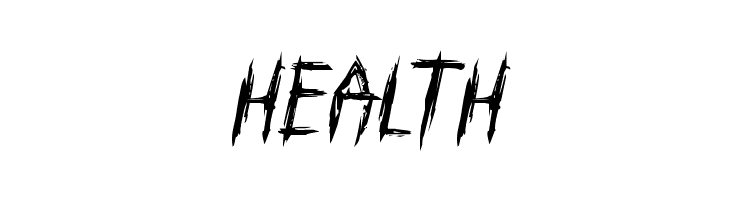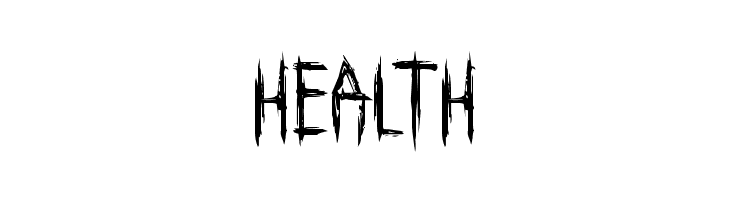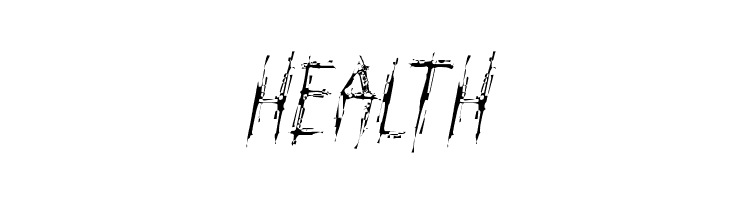
Strained Font
A bold, hand-drawn font with elongated, textured strokes and a dynamic, urban feel.
Carnival Corpse Shadow Font
A bold, shadowed font with a distressed, horror-themed style.
Carnival Corpse Super-Italic Font
A bold, distressed, and heavily slanted font with a grunge aesthetic.
Clownoween Font
A jagged, playful font with a gothic twist, perfect for spooky themes.
ESCOPO Font
A thorny, edgy font with jagged, chaotic characters.
Ghoulish Intent Shift Font
A bold, distressed font with a rugged, edgy appearance.
JMHSELECTTERROR-Regular Font
A bold, jagged font with a horror-themed, distressed appearance.
Nightmare Alley Rotalic Font
A bold, distressed, and slanted font with a gritty, urban aesthetic.
Dread Ringer 3D Font
A bold, 3D cartoonish font with rugged edges and a playful style.
Infektion Font
A bold, distressed font with a grunge aesthetic and rugged texture.
Red Undead Rotated 2 Font
A bold, distressed font with a grungy, irregular texture.
Ghoulish Intent Font
A bold, jagged font with an eerie, hand-drawn style perfect for spooky themes.
Red Undead Rotated Font
A bold, distressed font with a rugged, grunge style.
DKPoisonIvy Font
A whimsical, hand-drawn font with tall, narrow letters and a natural, sketch-like style.
Nightmare Alley Expanded Font
Carnival Corpse Shadow Expanded Font
A bold, shadowed font with a distressed, eerie style, perfect for horror themes.
GorgoBold Font
Nightmare Alley Condensed Font
A bold, distressed font with a vintage horror theme.
Creepy Crawlers Rotated Font
A bold, jagged font with a spooky, horror-themed design.
horrorCORE Font
A chaotic, jagged font with a horror-themed, dynamic appearance.